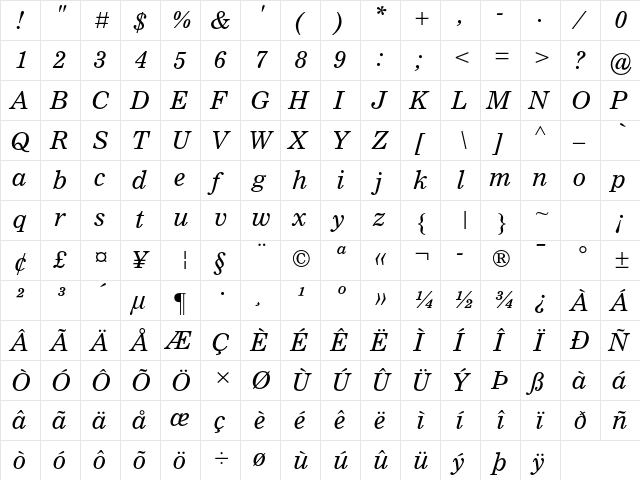
Nimrod MT Std Italic
Design Context for Nimrod MT Std Typeface
Nimrod MT Std is a composed and adaptable typeface that performs quietly and consistently across a wide range of design contexts. Its italic angle brings a sense of urgency and motion to the letterforms.
Pro Tip: Try Nimrod MT Std for annotation and caption copy alongside an upright companion — the contrast in angle creates a dynamic but ordered typographic system.